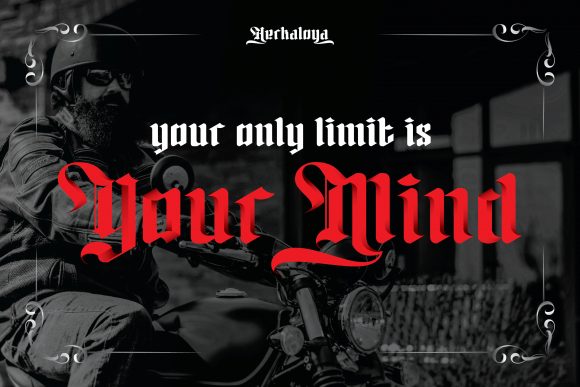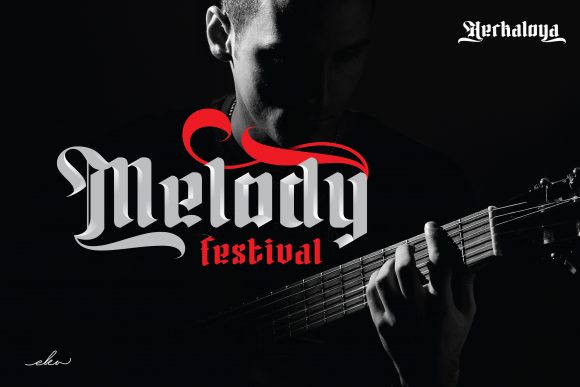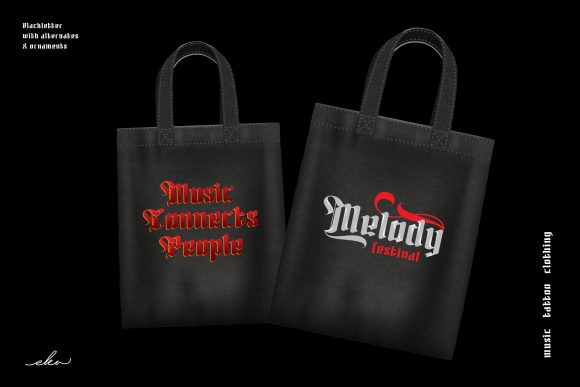
Introduction to Herkaloya Font
Herkaloya is an assertive and thick blackletter font.
Add this authentic font to each of your creative ideas and notice how it makes them stand out .
Key Features of Herkaloya Font
Why Choose Herkaloya Font?
Herkaloya Font offers exceptional quality and versatility, making it a valuable addition to your design toolkit. Whether you’re creating for personal projects or commercial use, Herkaloya Font delivers professional results.